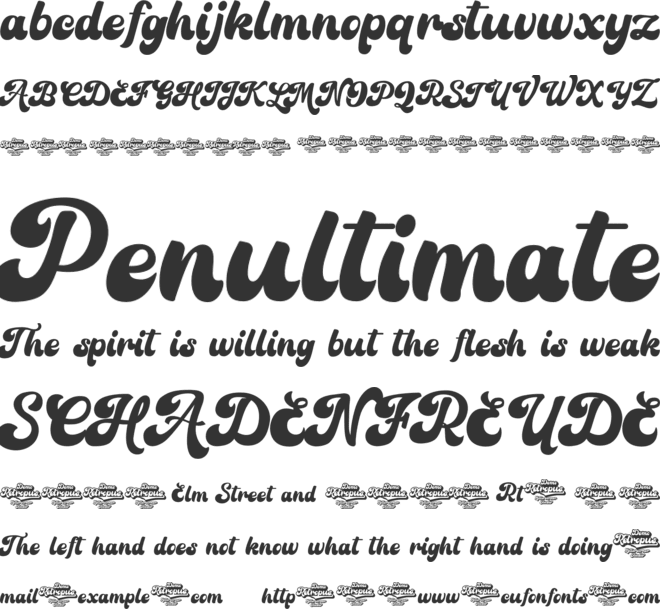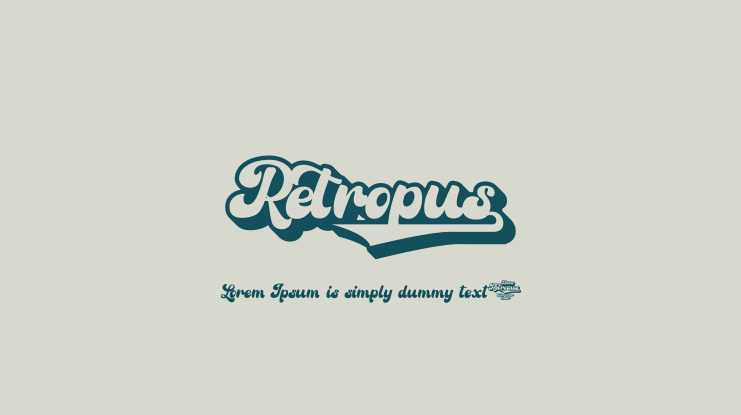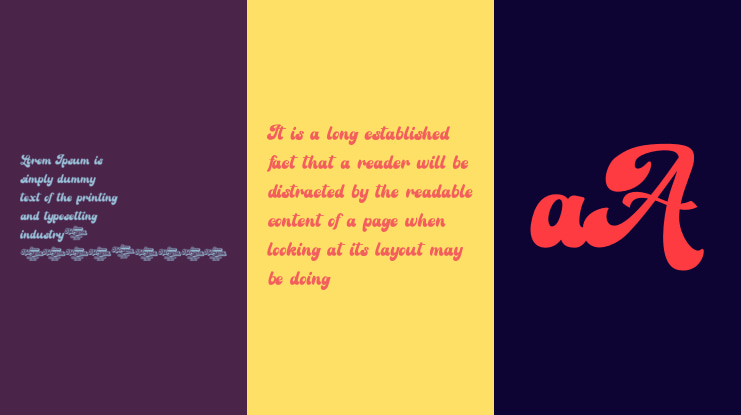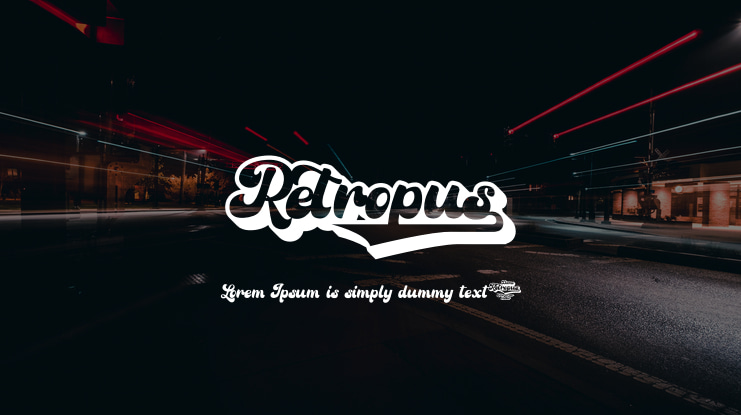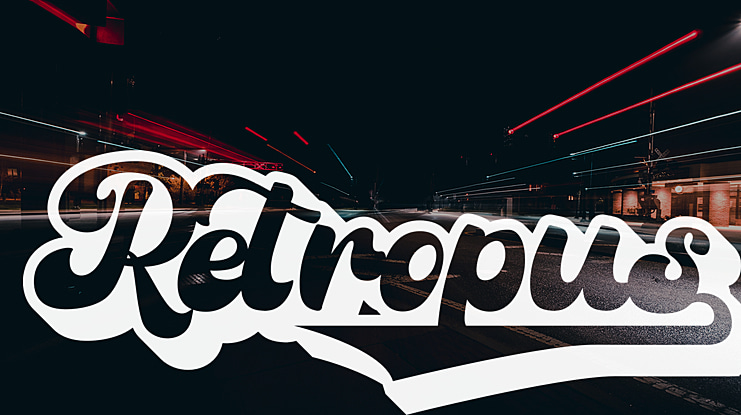
Retropus Font
Introducing All New Retropus Font. It is design and shared by Mhdafifersya. The Retropus Script made with personality touch every single curve. I hope this can make inspire you from your work. and a very bouncy baseline It has a perfectly paired complimentary marker font , and a super handy set of bonus Swash.
Ideal for logos, handwritten quotes, product packaging, header, poster, merchandise, social media & greeting cards.